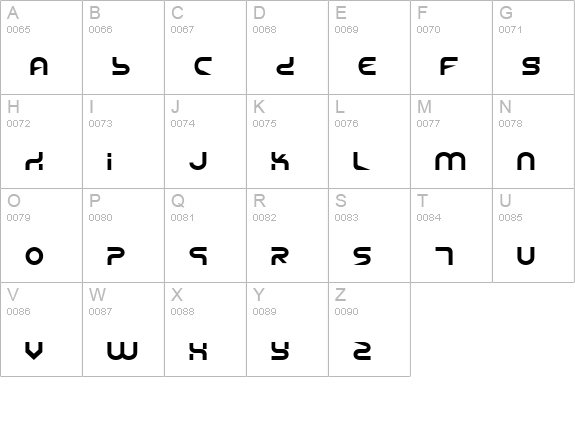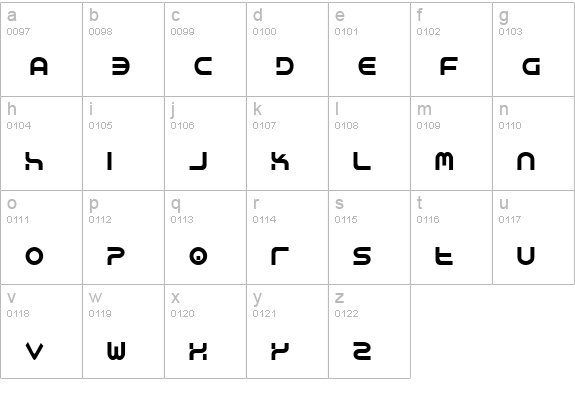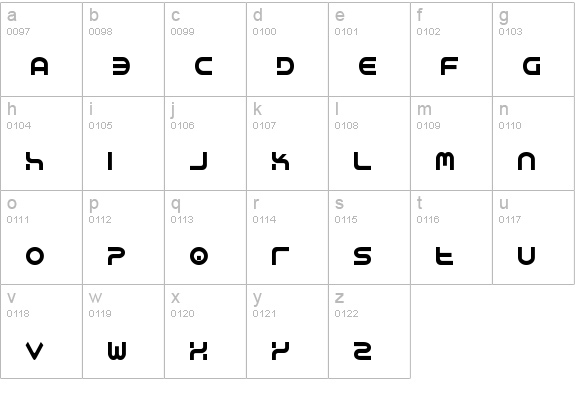
Introducing Yukon Tech font, a modern and sleek typeface perfect for all your digital design needs. This versatile font features clean lines and sharp edges, making it ideal for technology-related projects, websites, and branding materials. With its futuristic aesthetic and bold yet legible appearance, Yukon Tech font adds a touch of sophistication to any design. Best of all, Yukon Tech font is available for free download at FontsMarket.com, making it accessible to all designers and creators looking to elevate their work with a contemporary and impactful typeface. Don't miss out on this opportunity to enhance your projects with the sleek and stylish Yukon Tech font today!